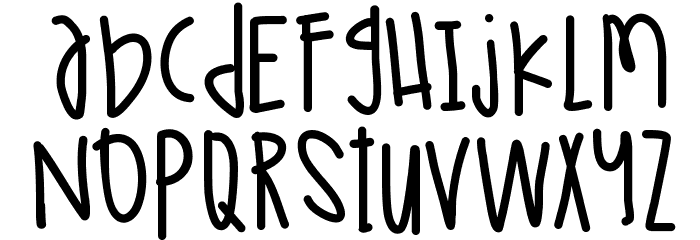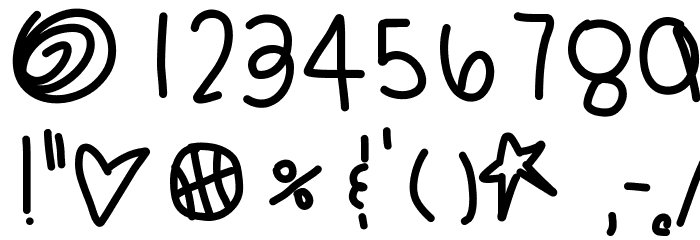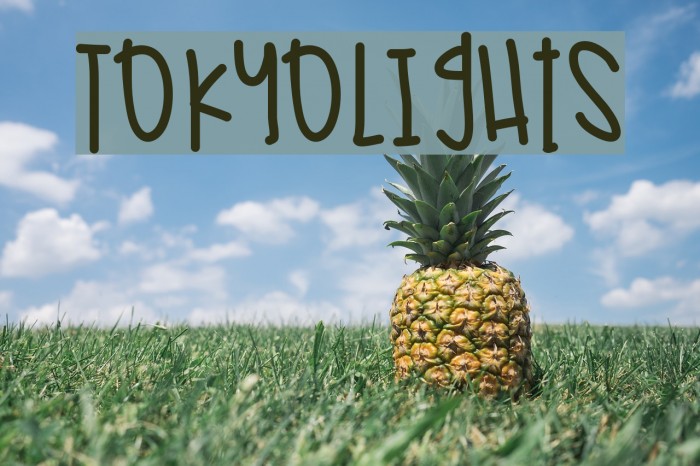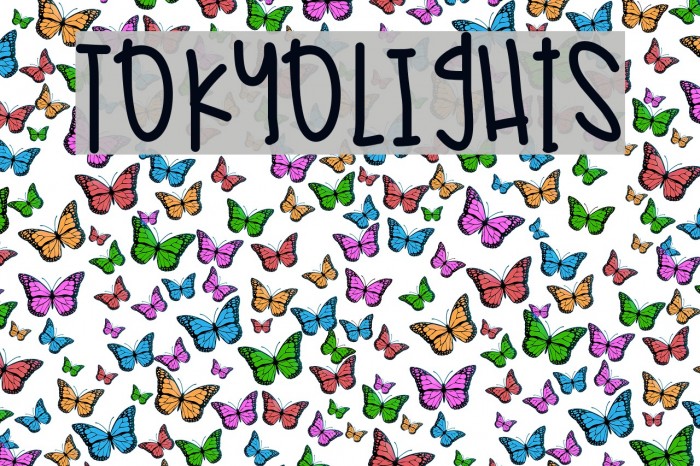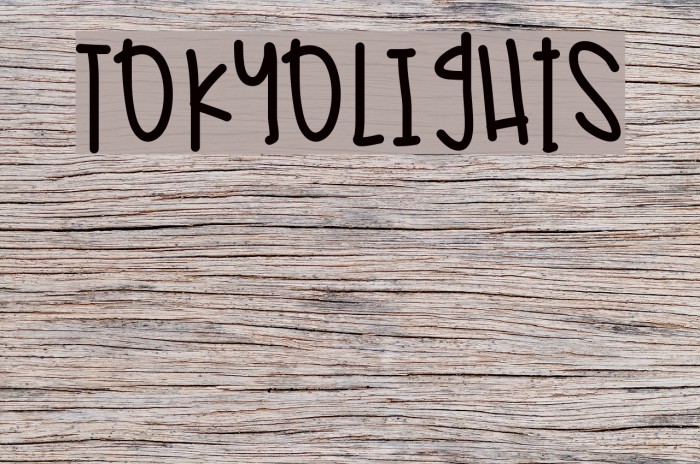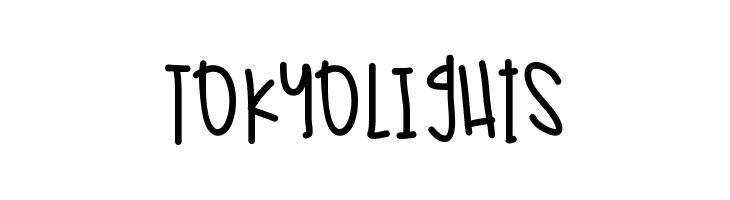
TokyoLights Font
This playful and energetic font features a handwritten style with a casual, informal appearance. The letters are tall and narrow, with a consistent stroke width that gives it a uniform look. The characters have a whimsical, slightly irregular shape, adding to its charm and approachability. The font includes both uppercase and lowercase letters, numbers, and a variety of special characters, making it versatile for different uses. Its unique style is reminiscent of doodles or sketches, perfect for projects that aim to convey creativity and fun.
A playful, handwritten font with a casual and whimsical style.
- Proposed Projects: Ideal for children's books, creative posters, casual branding, and playful social media graphics.
- Overall Style: Playful